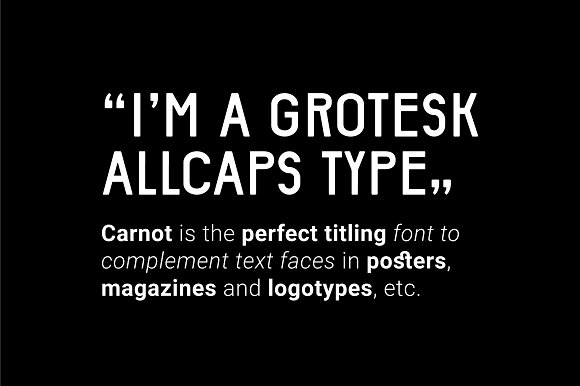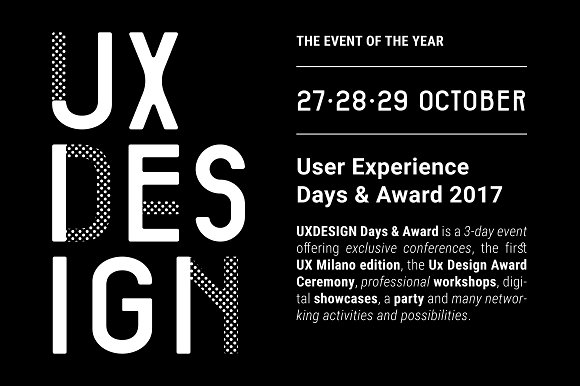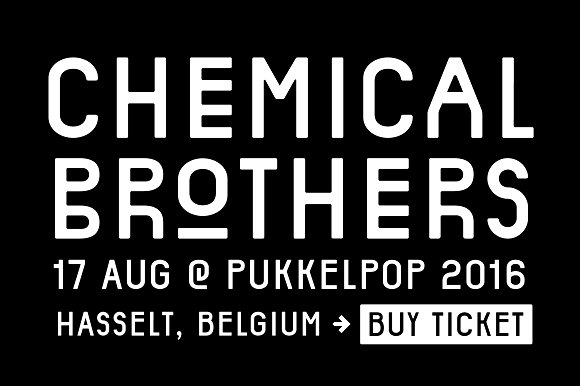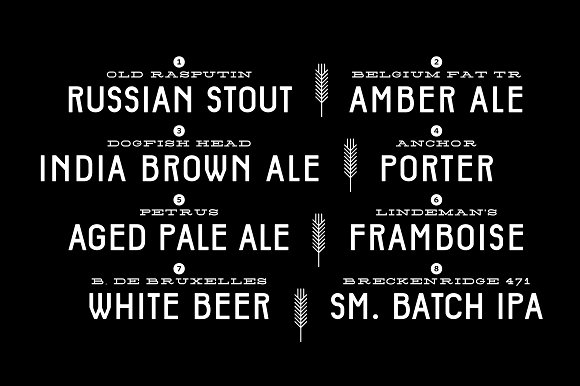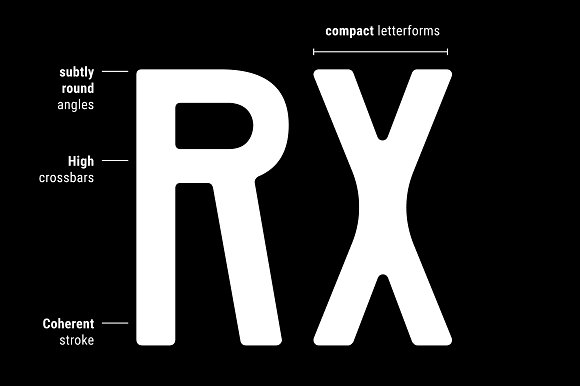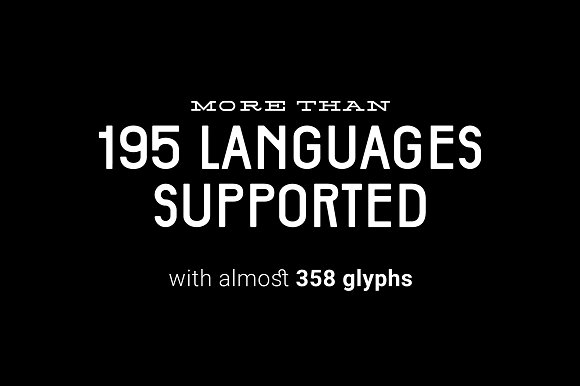
Carnot Font: A Modern Grotesk Typeface for Bold and Elegant Designs
In the world of typography, fonts play a crucial role in conveying the tone and personality of a brand or design. For designers and crafters, finding the perfect font can be a daunting task. However, if you’re looking for a modern grotesk font that exudes strength, geometry, and elegance, look no further than the Carnot font. Created by the Hederae Type Foundry, Carnot is a unique typeface that combines bold and elegant characteristics, making it an excellent choice for a wide range of design projects.
The Story Behind Carnot Font
Carnot font is a relatively new addition to the world of typography, having been carefully crafted by the Hederae Type Foundry. The foundry, known for its innovative approach to type design, aimed to create a font that would cater to the needs of modern designers. The result is a typeface that is not only visually stunning but also highly versatile. Carnot’s design is inspired by the principles of geometric shapes, making it a perfect fit for designs that require a strong and modern aesthetic.
Key Features of Carnot Font
So, what makes Carnot font stand out from the rest? Here are some of its key features:
- Geometric Design: Carnot’s design is rooted in geometric shapes, giving it a strong and modern look.
- Bold and Elegant: The font strikes a perfect balance between boldness and elegance, making it suitable for a wide range of design projects.
- Grotesk Style: Carnot is a grotesk font, characterized by its clean lines, simple shapes, and lack of decorative elements.
- High Versatility: The font is highly versatile and can be used for various design projects, including branding, advertising, packaging, and more.
Use Cases for Carnot Font
Carnot font is an excellent choice for designers and crafters looking to create visually stunning designs. Here are some use cases where Carnot font can shine:
- Branding: Carnot font is perfect for creating strong and memorable brand identities.
- Advertising: The font’s bold and elegant characteristics make it an excellent choice for advertising campaigns.
- Packaging: Carnot font can add a touch of sophistication and modernity to packaging designs.
- Web Design: The font’s clean lines and geometric design make it an excellent choice for web design projects.
Tips for Using Carnot Font
To get the most out of Carnot font, here are some tips to keep in mind:
- Pair it with Other Fonts: Carnot font pairs well with other fonts, especially those with a more elegant or cursive style.
- Experiment with Sizes: The font’s bold characteristics make it suitable for use in various sizes, from headings to body text.
- Play with Colors: Carnot font can be used with a wide range of colors, so don’t be afraid to experiment and find the perfect combination.
In conclusion, Carnot font is a modern grotesk typeface that offers a unique combination of strength, geometry, and elegance. Its versatility and range of use cases make it an excellent choice for designers and crafters looking to create visually stunning designs. Whether you’re working on a branding project, advertising campaign, or packaging design, Carnot font is definitely worth considering.